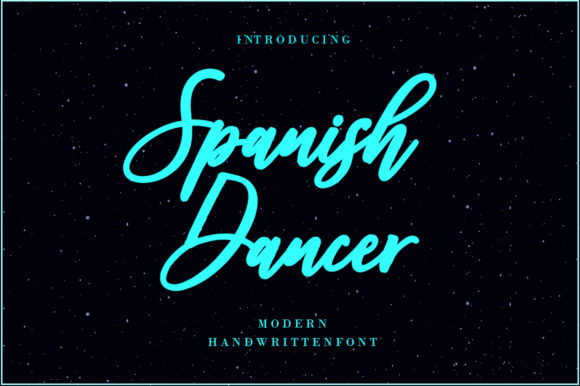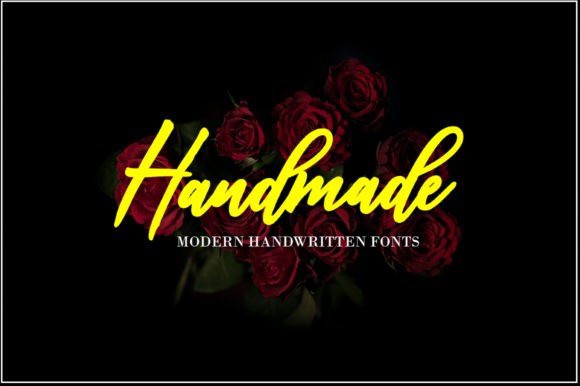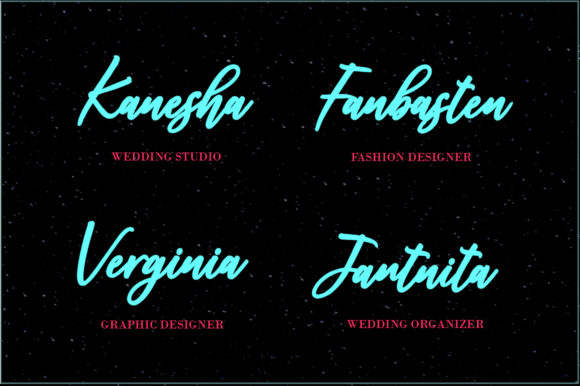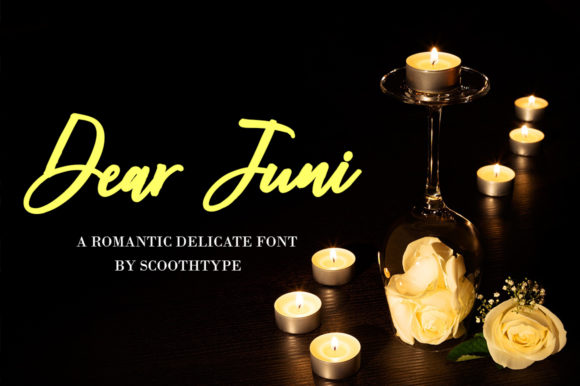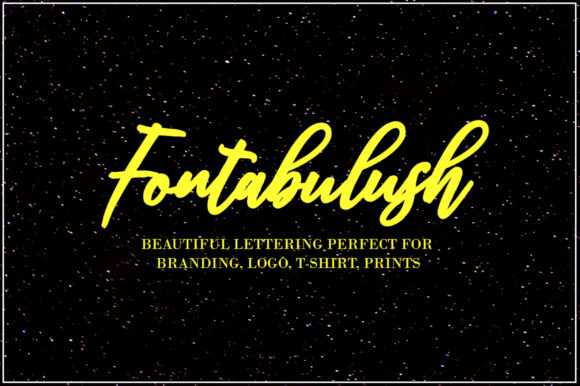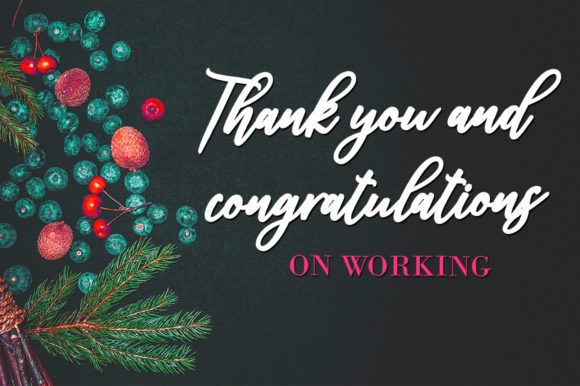
Spanish Dancer Font
About Spanish Dancer Font
Introducing “The Spanish Dancer,” a modern handwritten font designed to bring a striking style that makes your design stand out. This font is more than just a typeface; it’s a design asset crafted with modernity and uniqueness, making it suitable for a variety of projects that demand a bold and eye-catching handwritten style.
“The Spanish Dancer” stands out with its modern handwritten script, featuring a striking style that captures attention and adds a unique flair to your text. Whether you’re working on logos, branding, headlines, posters, or any project that requires a bold and attention-grabbing font, this script delivers with its distinctive and impactful character.
Its striking style ensures that your text becomes a focal point, making a bold statement in your design. Logos designed with this font convey a sense of modernity and uniqueness, creating a memorable and stylish brand identity. Headlines, posters, and other designs crafted with “The Spanish Dancer” showcase a contemporary and eye-catching vibe, making them visually appealing and versatile.
The versatility of “The Spanish Dancer” makes it a great choice for a variety of creative applications, providing a modern handwritten font that adds a touch of boldness to any design context.
In summary, “The Spanish Dancer” is more than just a font; it’s a design companion that brings a modern handwritten script with a striking style to your projects. Embrace its uniqueness for logos, branding, headlines, and more, and let “The Spanish Dancer” enhance your designs with a bold and attention-grabbing character.